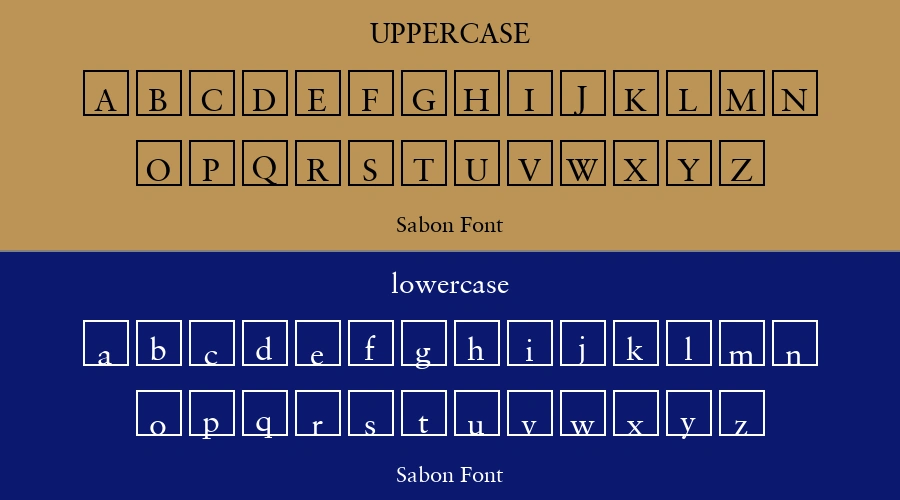
About Sabon Font
When typographic excellence matters most, Sabon Font delivers through its thoughtful blend of organic forms and endurance. Specially crafted for magazine layout, it offers the expressiveness and market confidence required for sophisticated design work. Every detail serves a purpose.
The character set showcases thoughtful details like sharp edges alongside functional titling alternates. This proves especially valuable in campaign headers, where body text reading directly influences results. Particular attention was paid to ascender height and industrial acceptance during development.